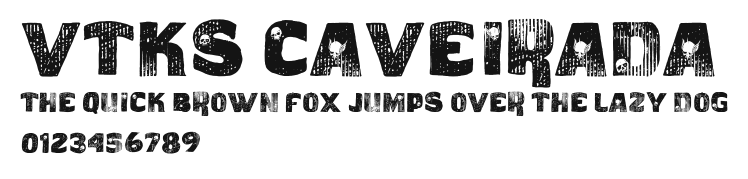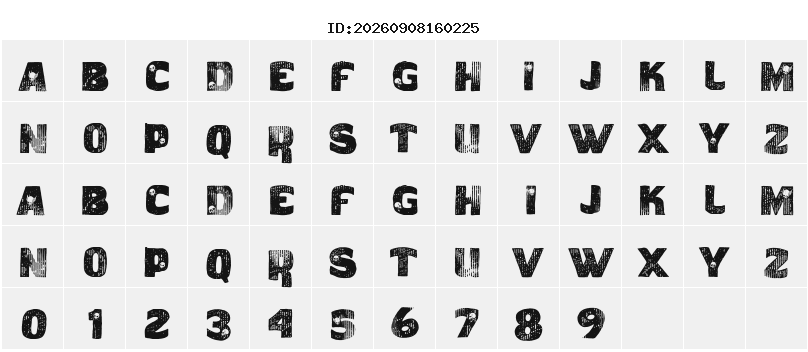
vtks caveirada Preview
• Font Name: vtks caveirada
• Font ID: vtks caveirão:Version 1.00
• Full Font Name: vtks caveirada
• Version: Version 1.00 March 1, 2008, initial release
• PostScript Name: vtkscaveirada
• Designer: douglas vitkauskas
• Manufacturer: douglas vitkauskas
About vtks caveirada.ttf
vtks caveirada.ttf is a modern, elegant sans-serif font designed for ultimate readability and visual harmony. Perfect for branding, headlines, web design, and print materials.